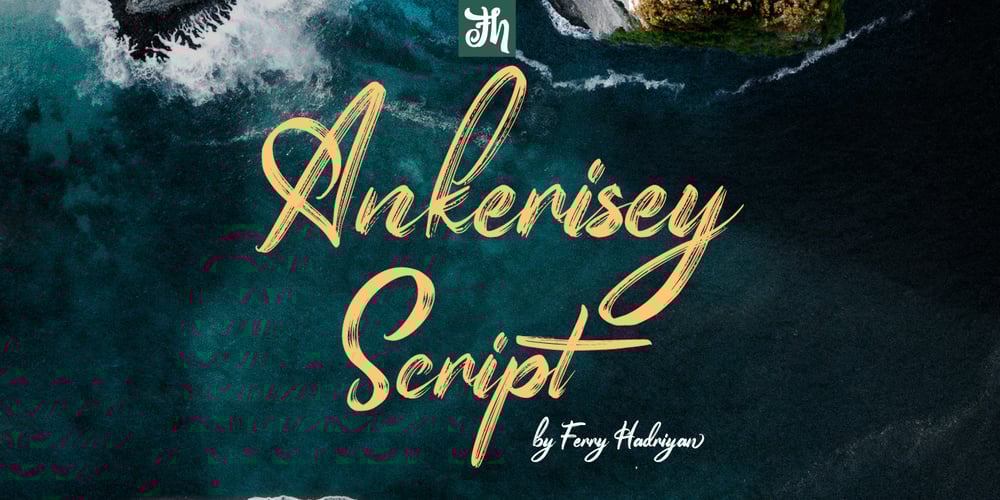
Ankerisey Font Family was designed by Ferry Hadriyan and published by FHFont. Ankerisey contains 1 styles and family package options. Ankerisey is script font with a hand-lettered, dry brush style, with OpenType feature include in the font. Suitable for design, element design, wedding, event, t-shirt, logo, badges, sticker, and awesome work.Features Of The Font:- All Standard Character, Symbol, Multi-lingual Support, Ligature, Stylistic Sets and Swashes.- PUA EncodingFollow Me:- https://www.instagram.com/FHFont- https://twitter.com/FH_Font- https://www.facebook.com/FHFont/- https://id.pinterest.com/feydesign/